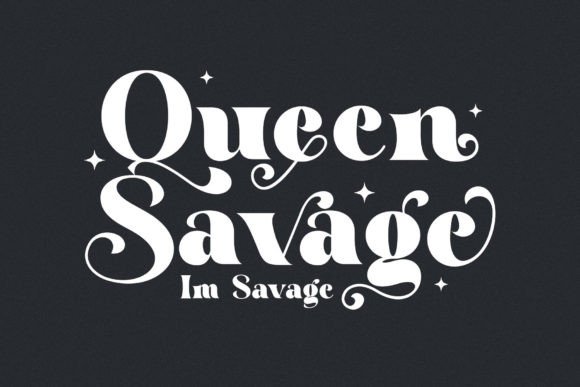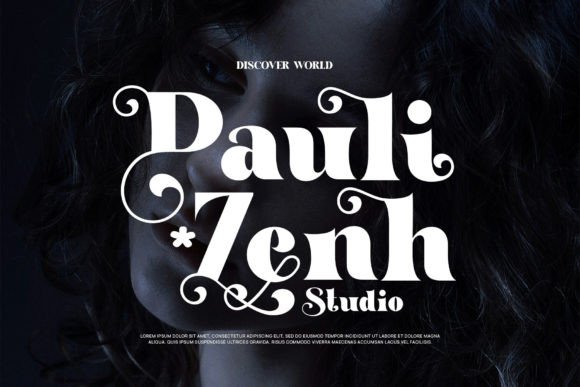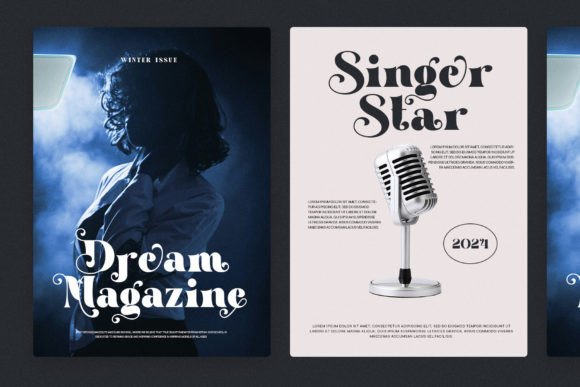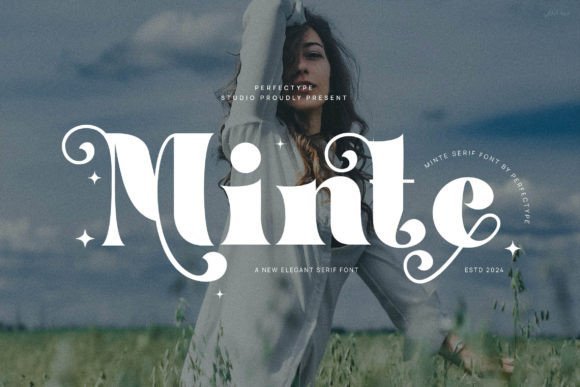
Introduction to Minte Font
This is a very elegant and classy font for all branding and logo designs.
This type of serif font is created with elegance and luxury so it is perfect for all your design needs This font is equipped with many beautiful and unique ligature and alternate options.
Key Features of Minte Font
Why Choose Minte Font?
Minte Font offers exceptional quality and versatility, making it a valuable addition to your design toolkit. Whether you’re creating for personal projects or commercial use, Minte Font delivers professional results.